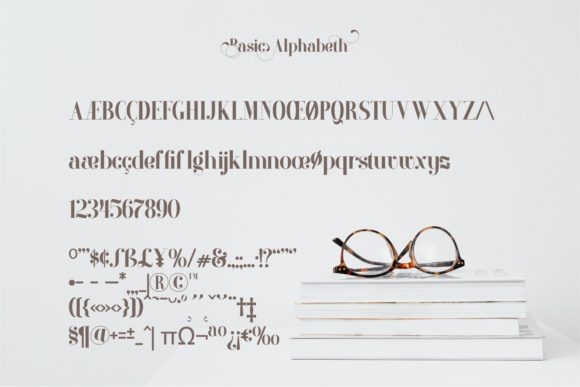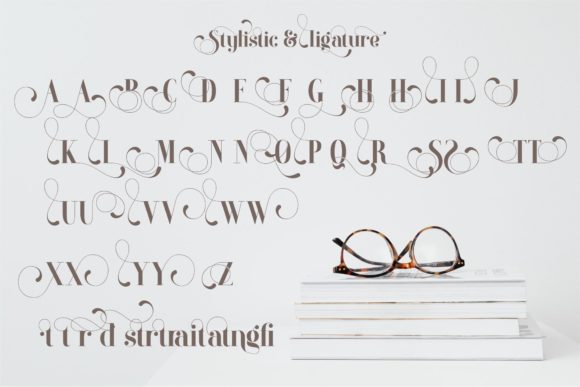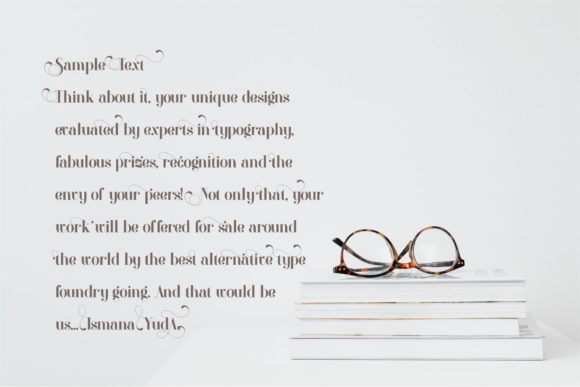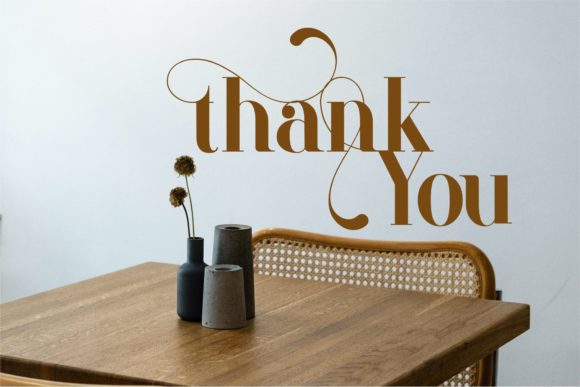
Introducing Artina Font: The Epitome of Elegance and Romance
Are you a designer or crafter looking for a font that exudes luxury, sophistication, and romance? Look no further than Artina Font, a stylish and luxurious serif font that is sure to elevate your designs to new heights. With its dainty and joyful aesthetic, Artina Font is the perfect choice for creating wedding invitations, cards, and other designs that require a personalized touch.
What Makes Artina Font So Special?
Artina Font is a masterclass in elegant typography, boasting a unique blend of classic and modern elements. Its serif design adds a touch of sophistication and refinement, while its dainty and joyful feel injects a sense of playfulness and whimsy. This font is perfect for designers and crafters who want to create beautiful, eye-catching designs that capture the essence of romance and luxury.
The Perfect Font for Wedding Invitations and More
Wedding invitations, cards, and other romantic designs require a font that is both elegant and expressive. Artina Font fits the bill perfectly, with its beautiful, flowing lines and delicate curves. Whether you’re designing a wedding invitation, a Valentine’s Day card, or a romantic poster, Artina Font is the perfect choice. Its luxurious feel and sophisticated aesthetic will make your designs stand out from the crowd and leave a lasting impression on your audience.
Key Features of Artina Font
• Stylish and Luxurious Design: Artina Font boasts a stylish and luxurious design that is perfect for high-end designs and romantic projects.
• Dainty and Joyful Aesthetic: Its dainty and joyful feel adds a touch of playfulness and whimsy to your designs.
• Suitable for a Variety of Projects: Artina Font is perfect for wedding invitations, cards, posters, and other designs that require a romantic, personalized touch.
• Elegant Serif Design: Its serif design adds a touch of sophistication and refinement to your designs.
Tips for Using Artina Font in Your Designs
To get the most out of Artina Font, here are a few tips to keep in mind:
• Pair it with a Simple Background: Artina Font is a statement font, so pair it with a simple background to let it shine.
• Experiment with Colors: Artina Font looks beautiful in a variety of colors, so don’t be afraid to experiment and find the perfect hue for your design.
• Use it for Headlines and Titles: Artina Font is perfect for headlines and titles, where its elegant and luxurious feel can really shine.
Why Designers and Crafters Love Artina Font
Designers and crafters love Artina Font for its unique blend of elegance and playfulness. Here are a few reasons why:
• It’s Versatile: Artina Font can be used for a wide range of projects, from wedding invitations to posters and more.
• It’s Easy to Read: Despite its elegant design, Artina Font is easy to read, making it perfect for body text and other applications.
• It’s Unique: Artina Font stands out from the crowd, giving designers and crafters a unique and distinctive look that sets them apart.
In conclusion, Artina Font is a stylish and luxurious serif font that is perfect for designers and crafters looking to add a touch of elegance and romance to their designs. With its dainty and joyful aesthetic, Artina Font is ideal for wedding invitations, cards, and other designs that require a personalized touch. Whether you’re a seasoned designer or a crafty DIY enthusiast, Artina Font is sure to become a favorite in your collection.